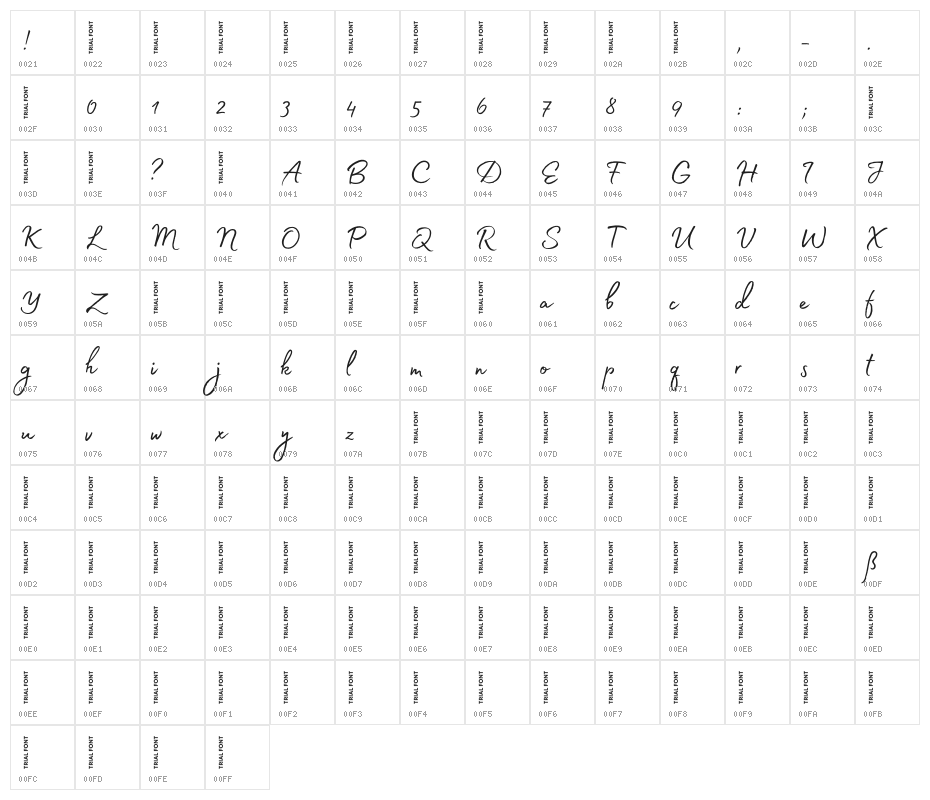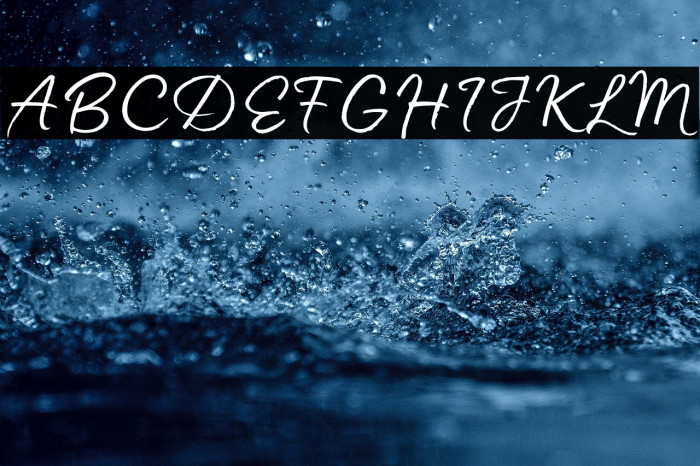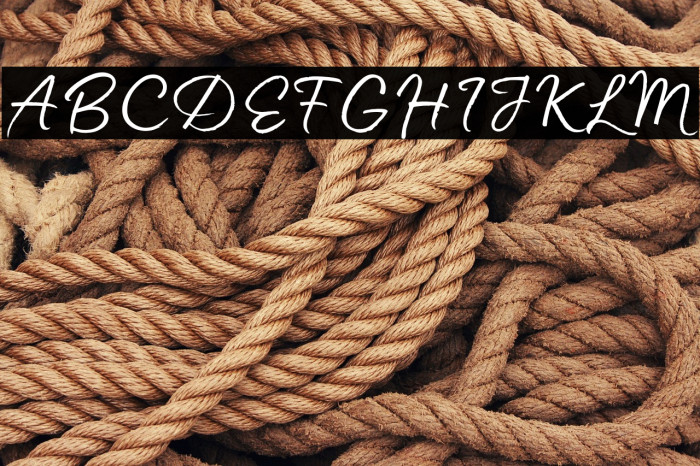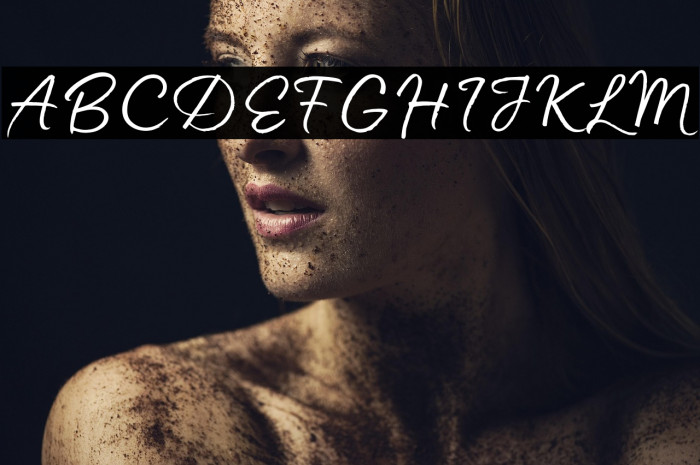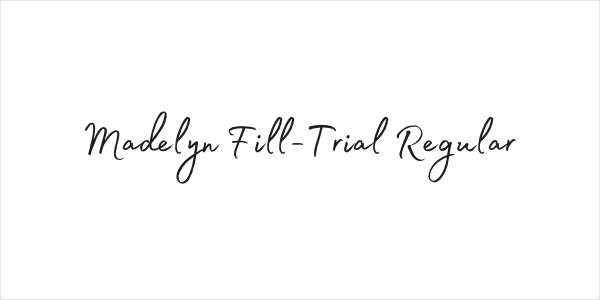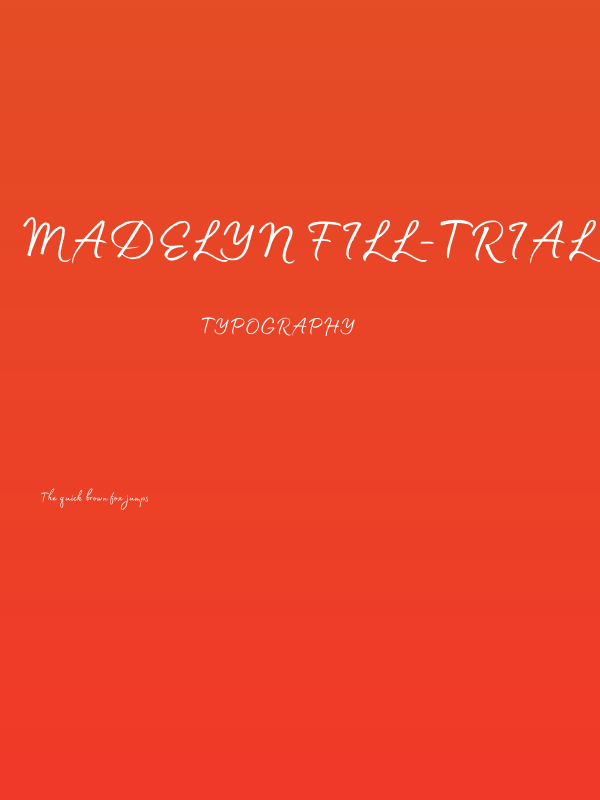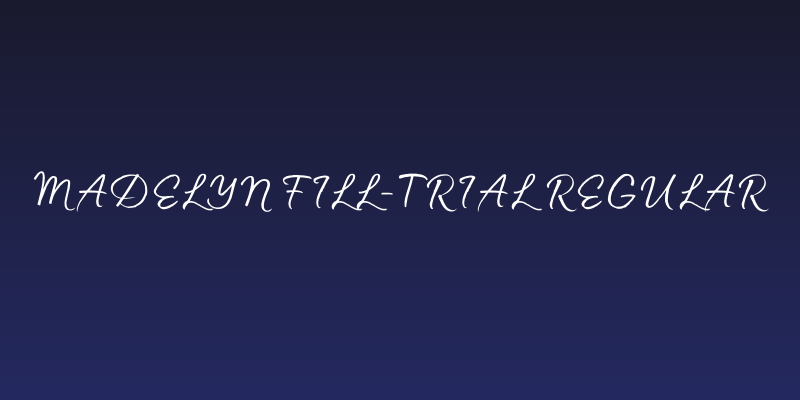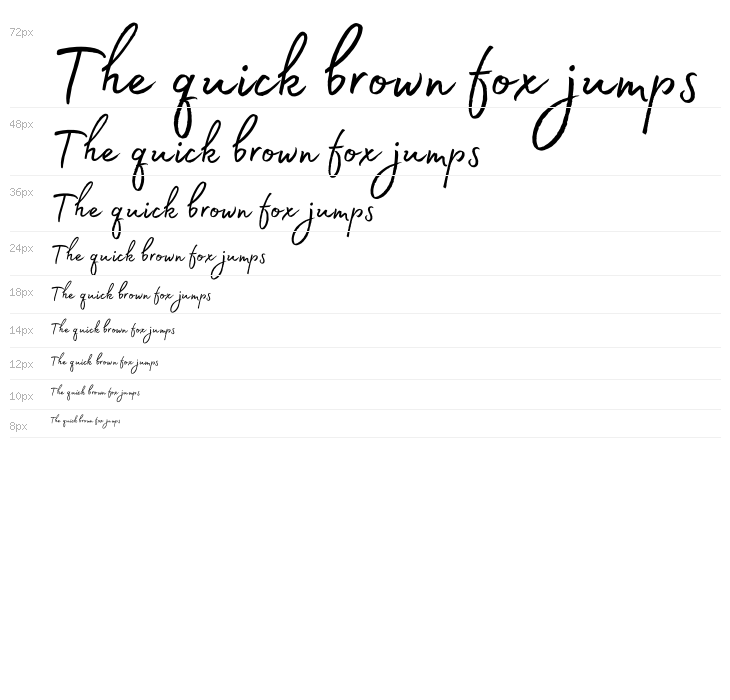
Madelyn Fill-Trial Regular Font
Madelyn Fill-Trial Regular Description
This font exudes a graceful and elegant style, characterized by its flowing script and cursive elements. The uppercase letters are slightly more structured, maintaining a balance between formality and fluidity, while the lowercase letters are more freeform and expressive. The numerals are clear and consistent with the overall style, ensuring readability. Special characters are integrated seamlessly, maintaining the font's cohesive aesthetic. This font is ideal for projects that require a touch of sophistication and personal flair.
| Proposed Projects | Ideal for wedding invitations, personal branding, elegant logos, and greeting cards. |